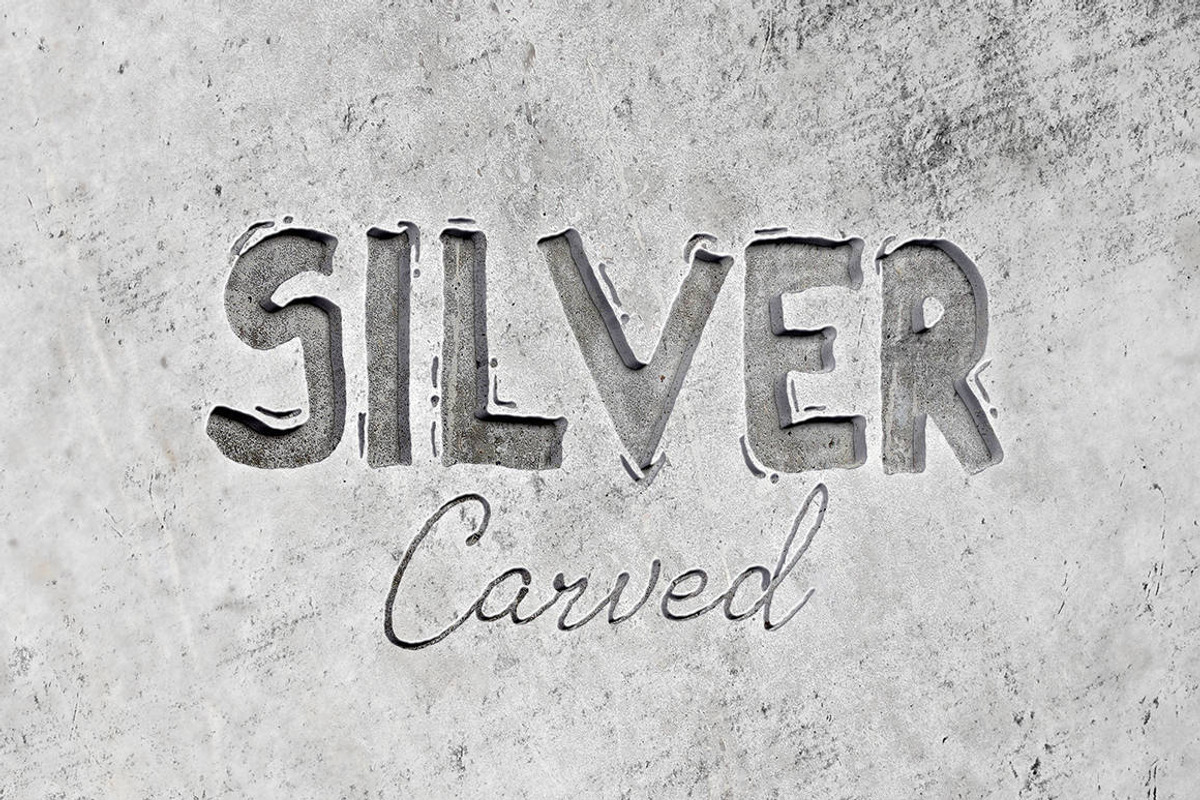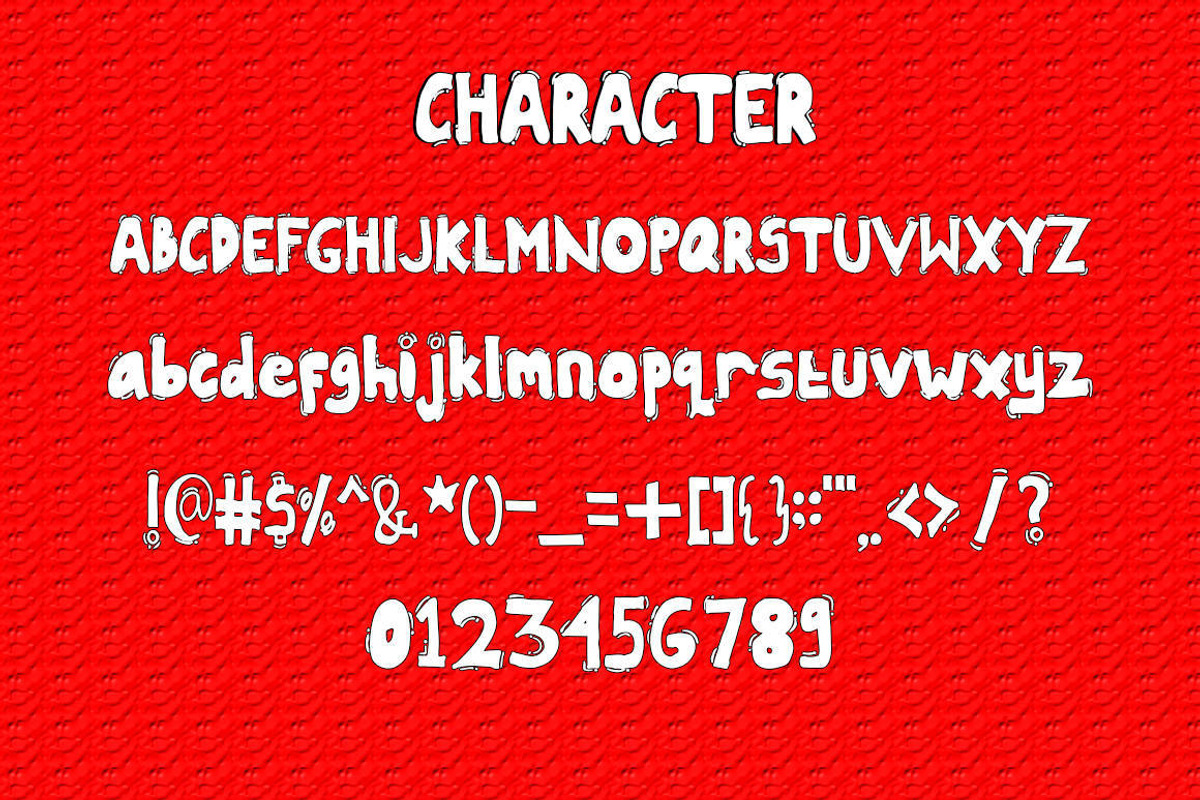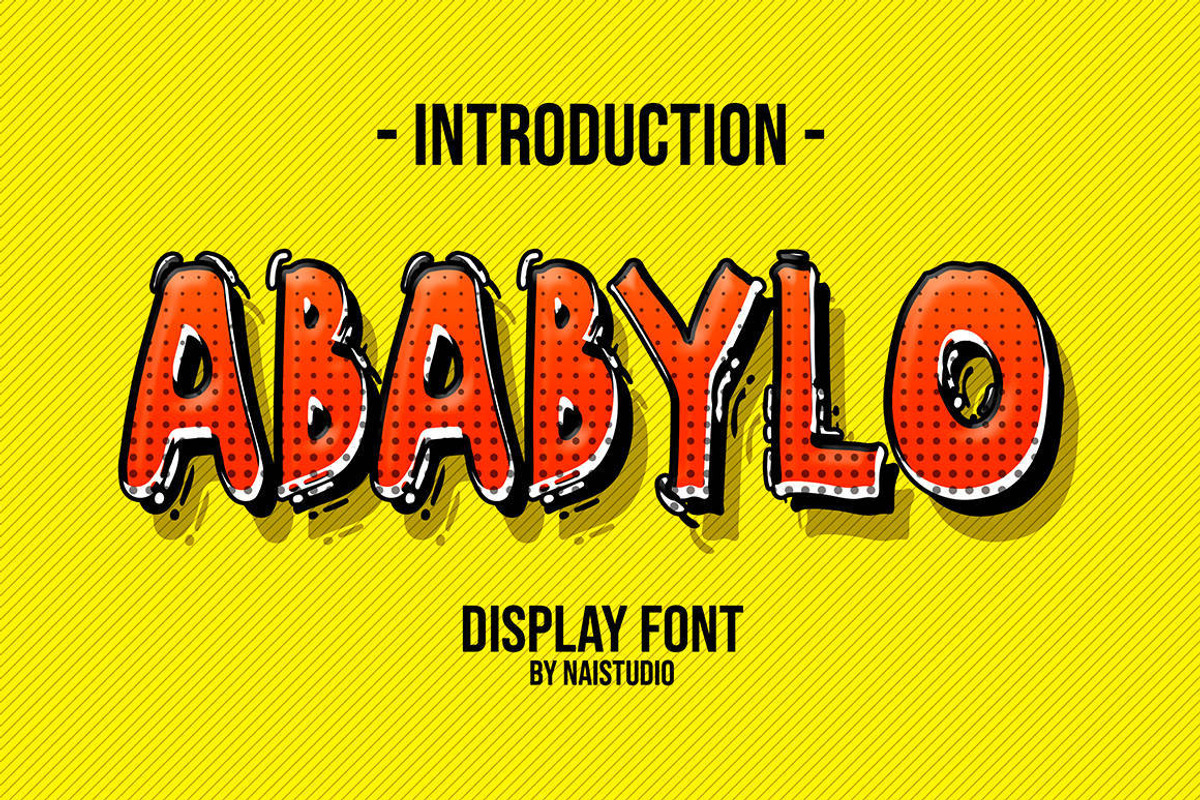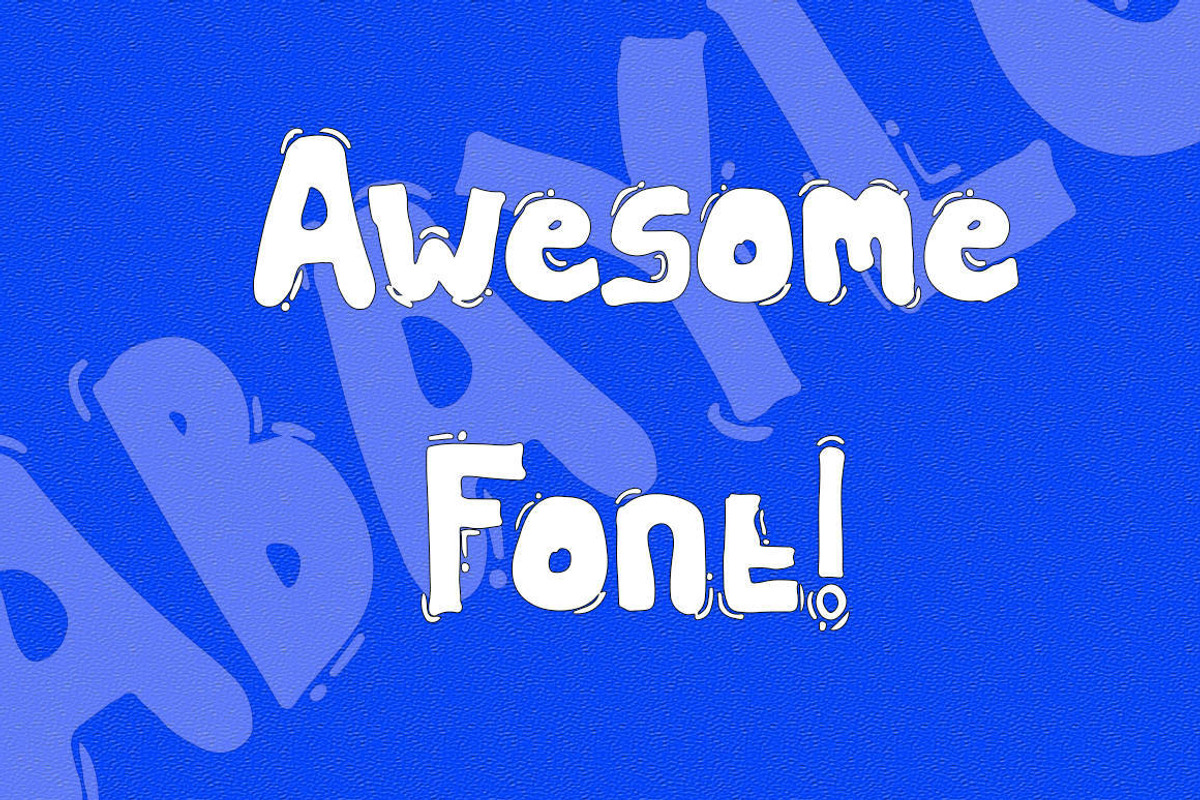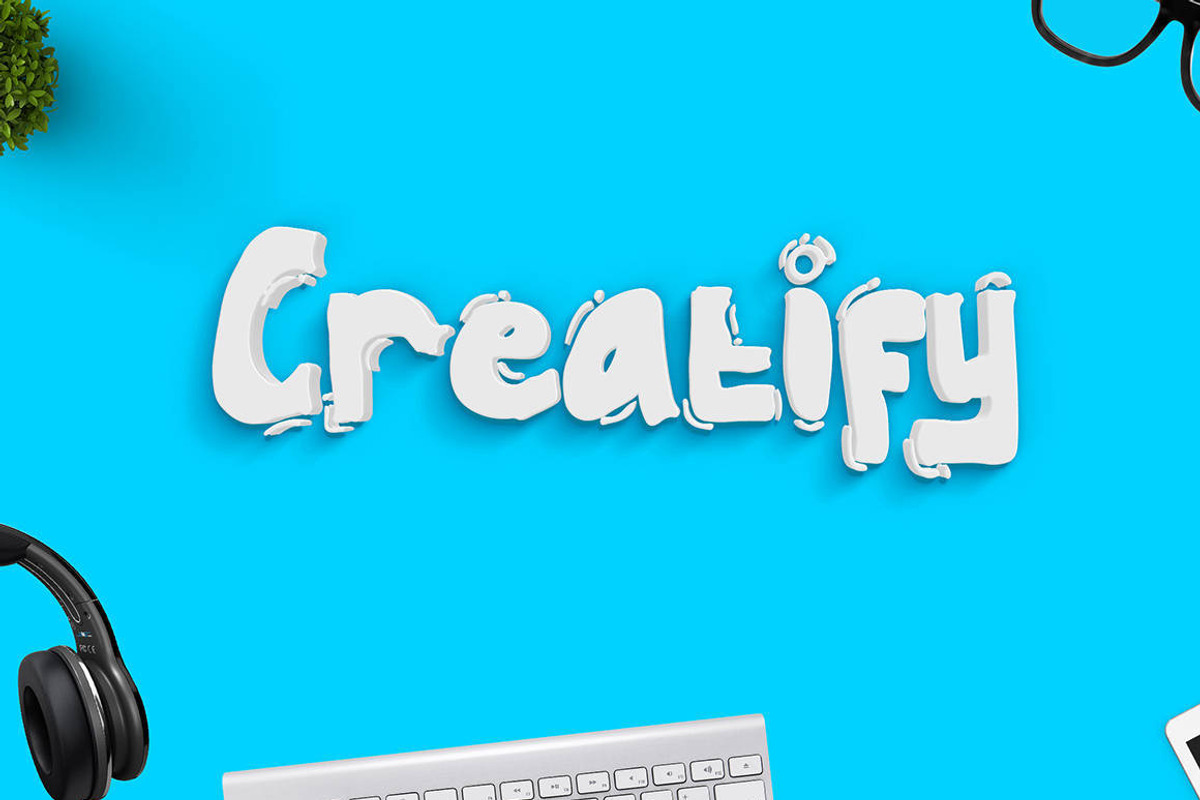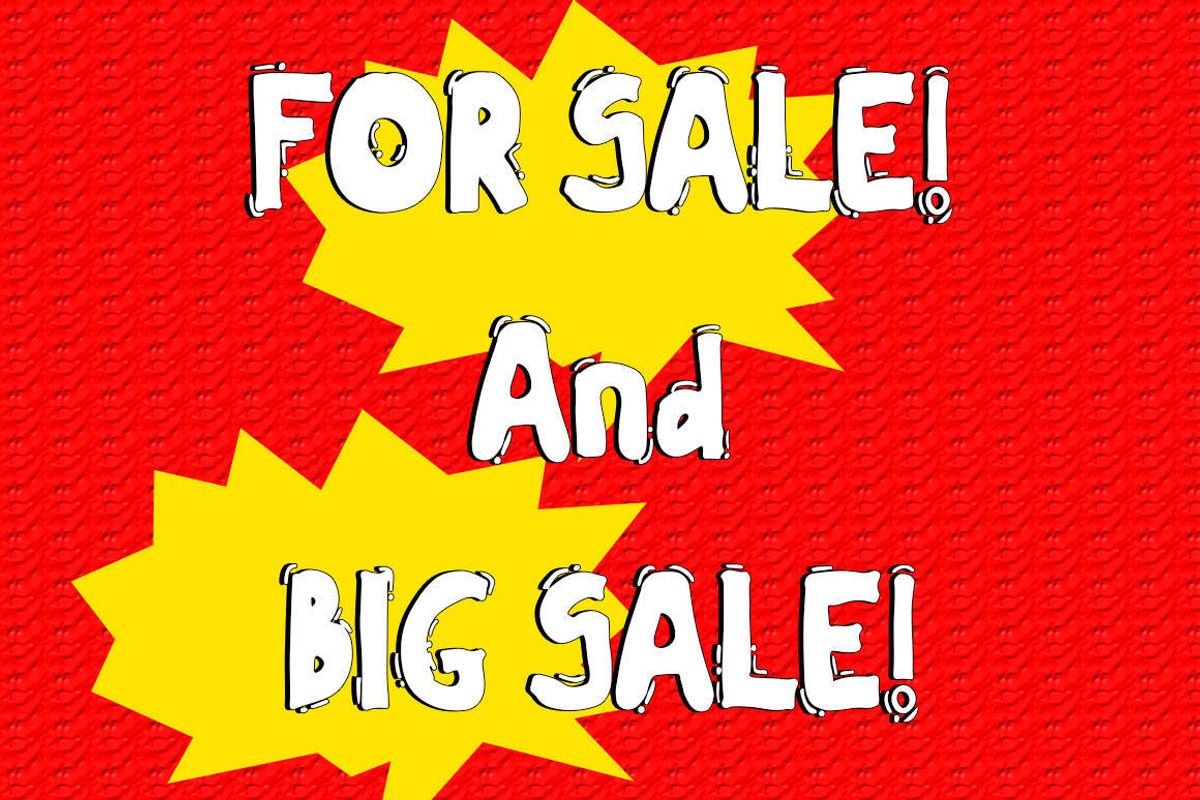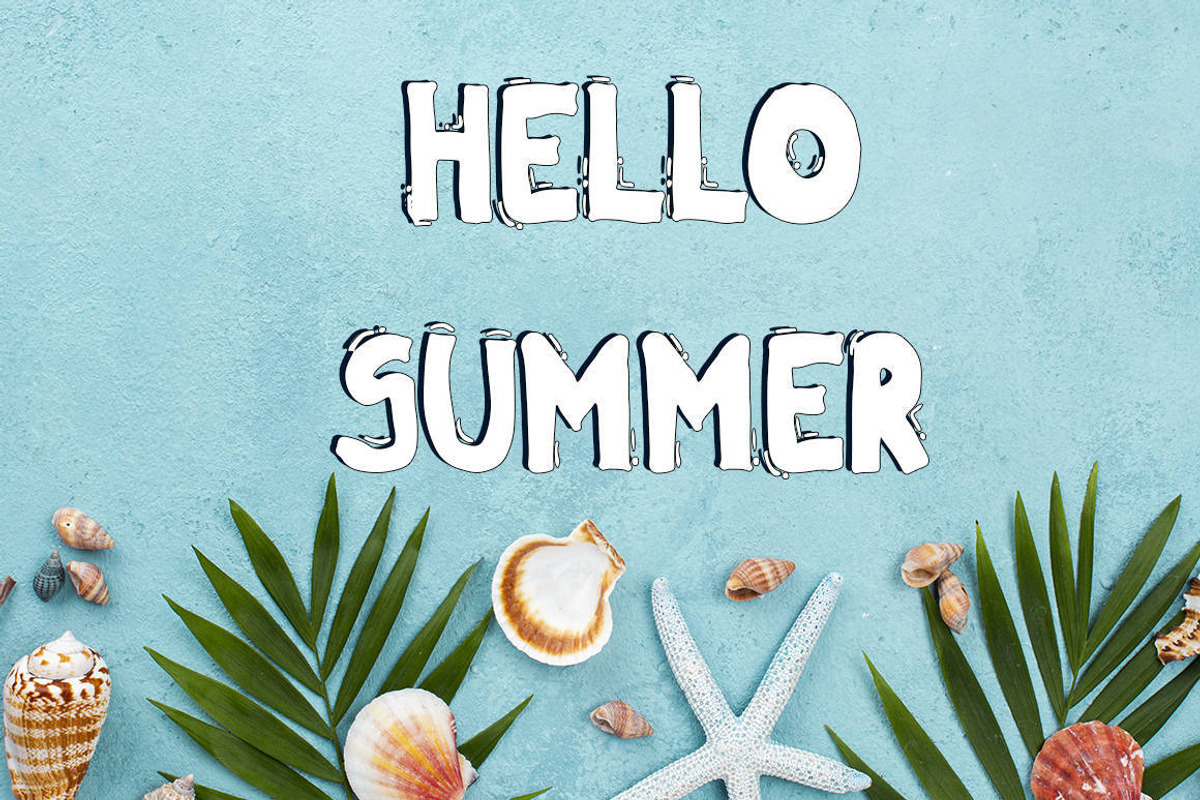
ABABYLO - Cartoon Display Font
Introducing ABABYLO - Cartoon Display Font
ABABYLO is a delicate, elegant and flowing handwritten font. It has beautiful and well balanced characters and as a result, it matches a wide pool of designs. Add it to your most creative ideas and notice how it makes them come alive!